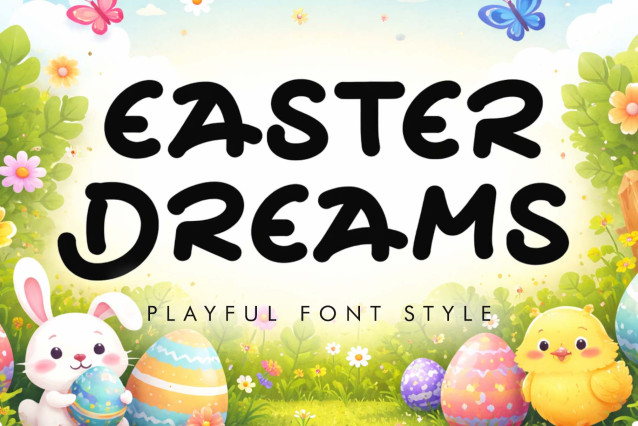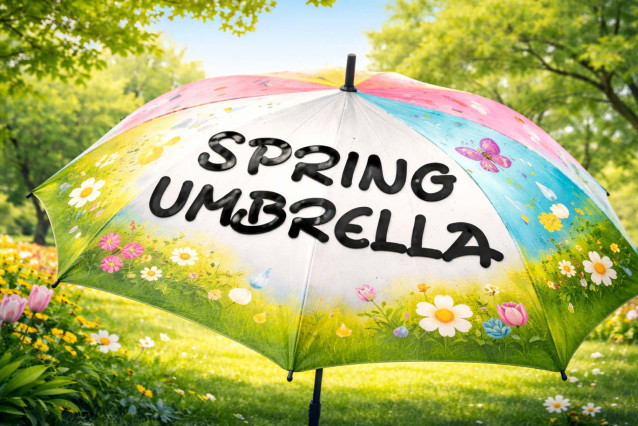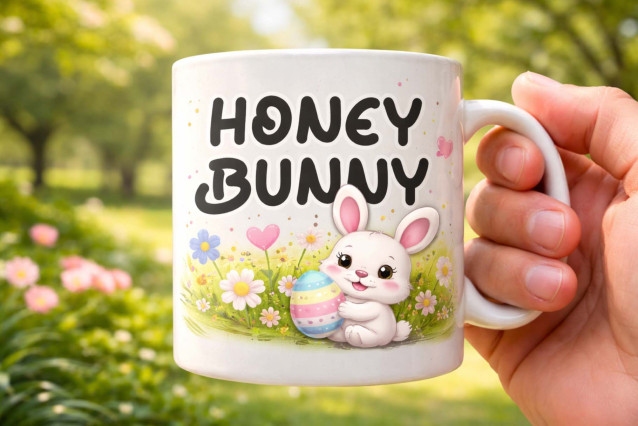
Easter Dreams Font
“Easter Dreams” is a unique and elegant display font. It features uppercase and lowercase letters, numerals, punctuations, and multilingual support. It’s perfect for summer, spring, Easter, vacations, holidays, back to school, Christmas, Halloween, banners, posters, logos, patriotic prints, branding, Mother’s Day, Patrick’s Day, Teacher’s Day, and more.